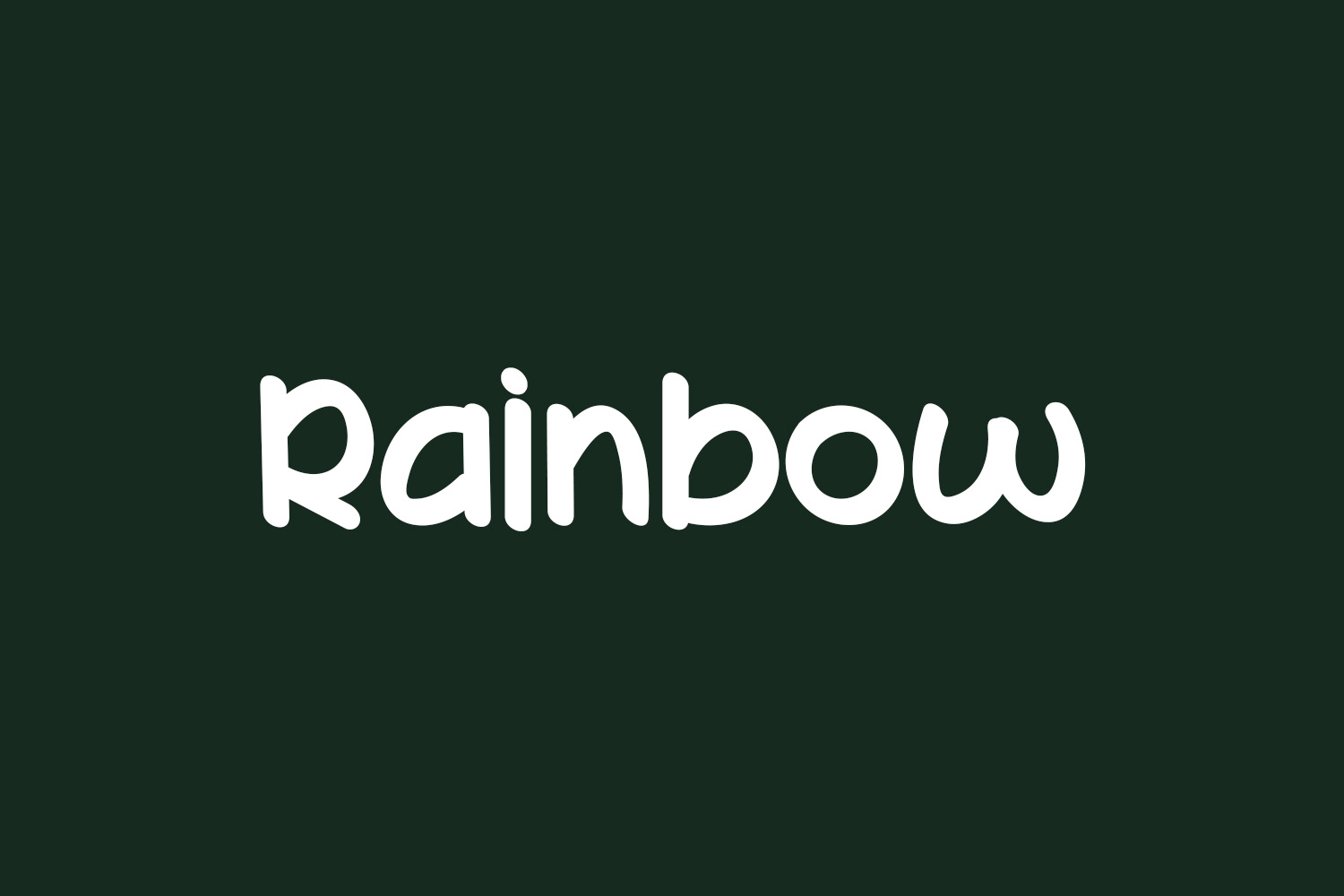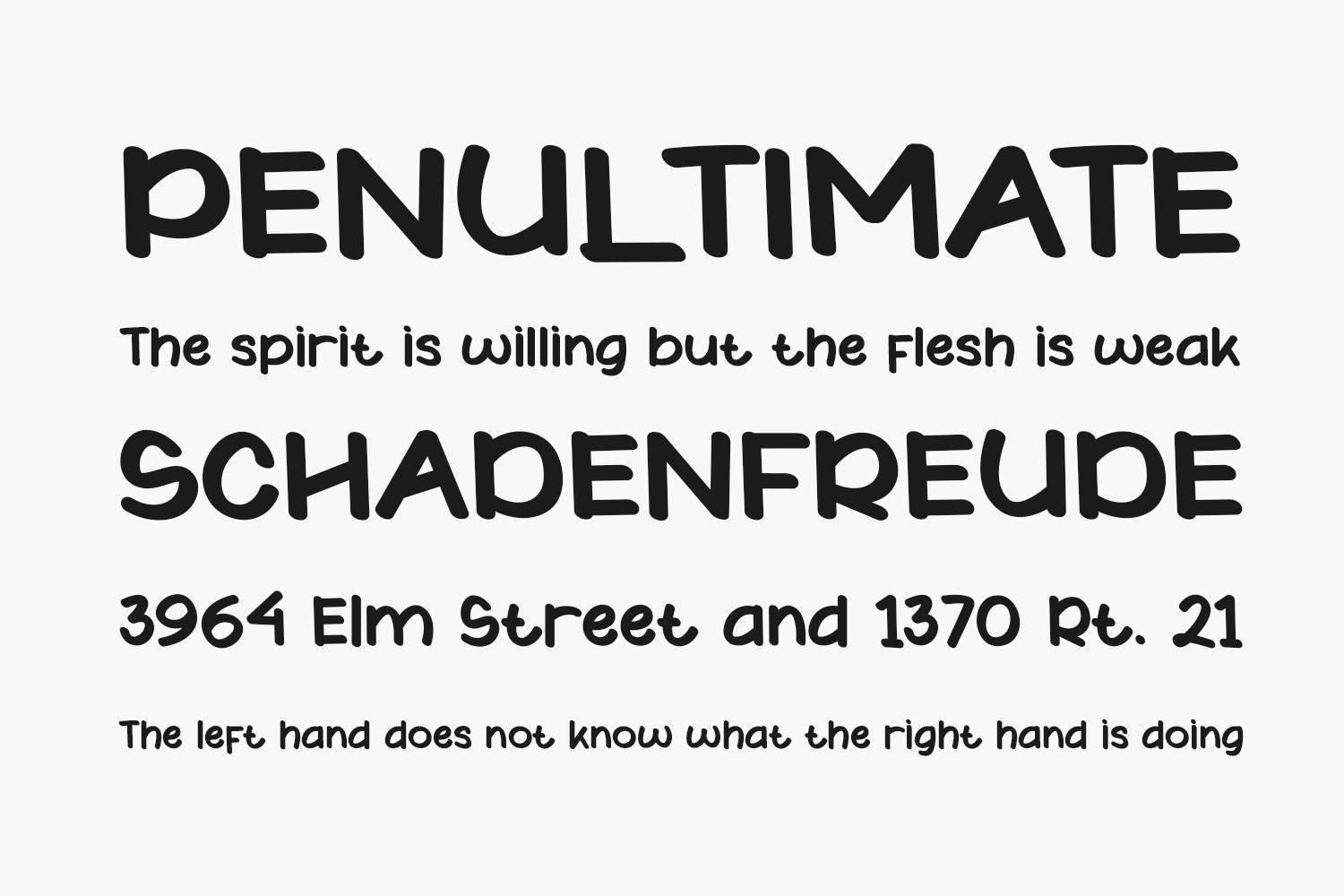
Rainbow Free Font presents a fluid handwritten font, characterized by its graceful strokes, tailor-made for your cherished projects. Embrace its remarkably unique and everlasting style, employing it to craft magnificent designs that captivate the senses. Rainbow Free Font is free for personal use only. Please purchase the full version for commercial use.